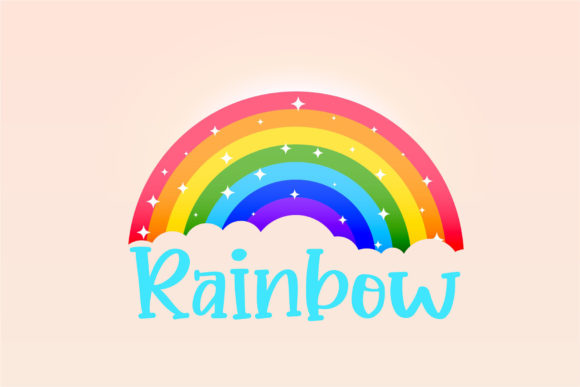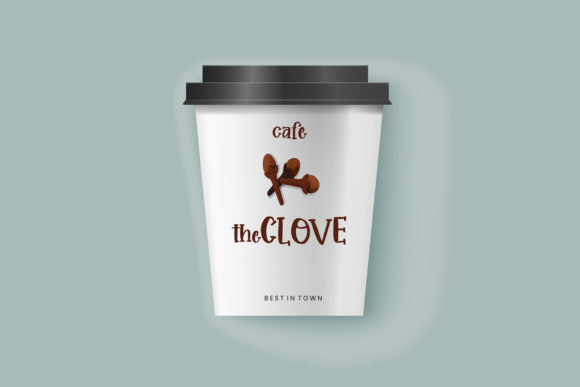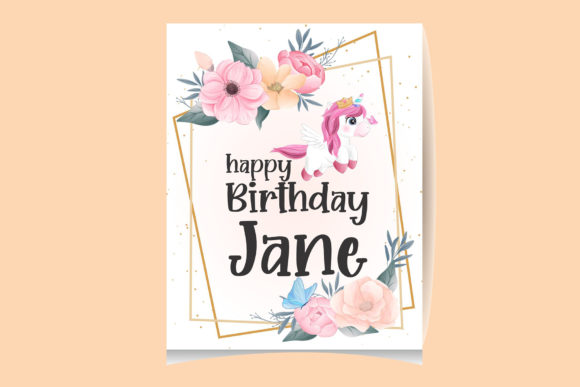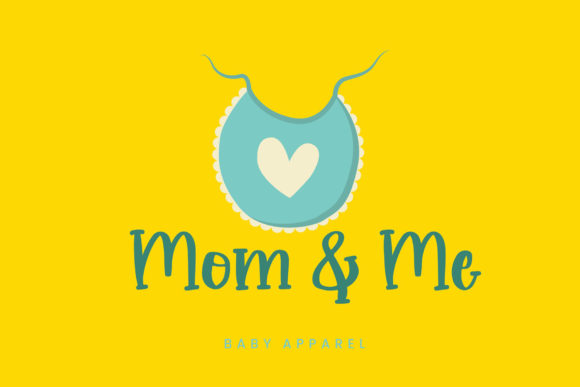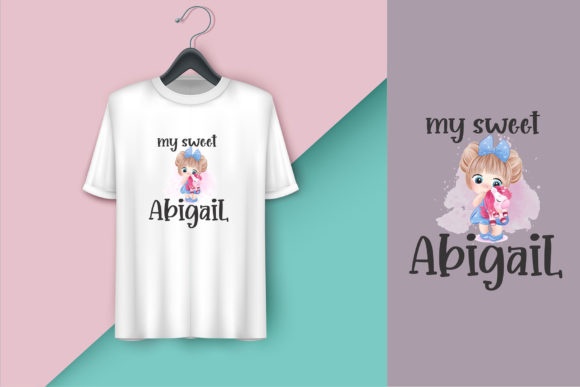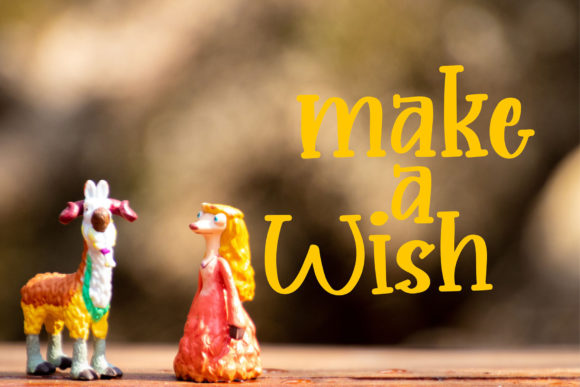
Introduction to Manise Unicorn Font Font
Fonts play a crucial role in design, and the Manise Unicorn Font font is a typeface that brings both character and versatility to any project. Whether you’re working on a branding project, a website, or a print design, the Manise Unicorn Font font offers a unique style that can elevate your work.
Manise Unicorn is a quirky serif font that has a dancing baseline and playful style which is an exciting addition to any design and would look especially wonderful on a children-themed project.
Key Features of Manise Unicorn Font Font
Why Choose Manise Unicorn Font Font?
The Manise Unicorn Font font is more than just a typeface – it’s a design tool that helps you communicate your message with style and clarity. Its unique character set and versatile design make it suitable for a wide range of applications, from elegant invitations to bold headlines.
With its carefully crafted letterforms and balanced proportions, the Manise Unicorn Font font ensures readability and visual appeal across all mediums.
What makes Manise Unicorn Font font special?
The Manise Unicorn Font font stands out with its unique design, exceptional readability, and versatility across various design applications.